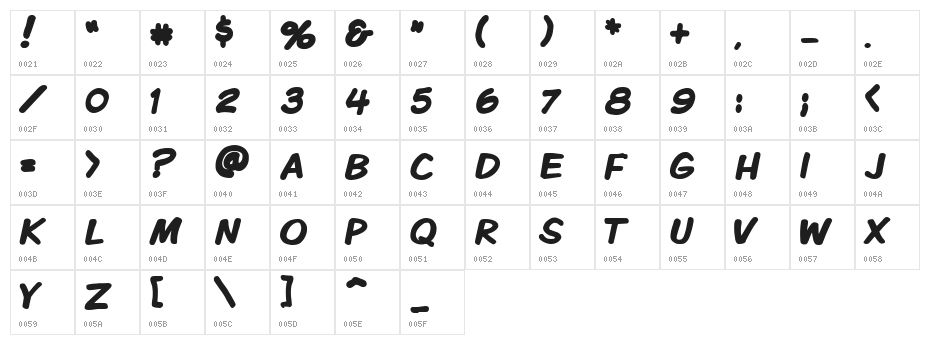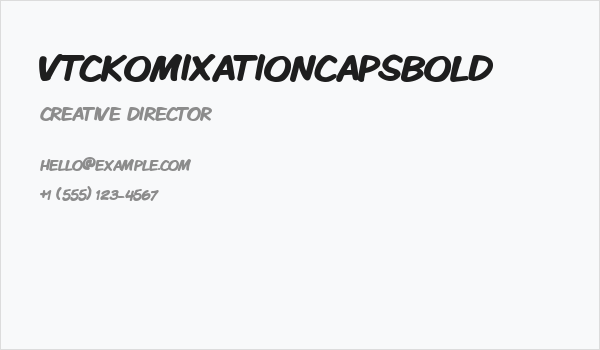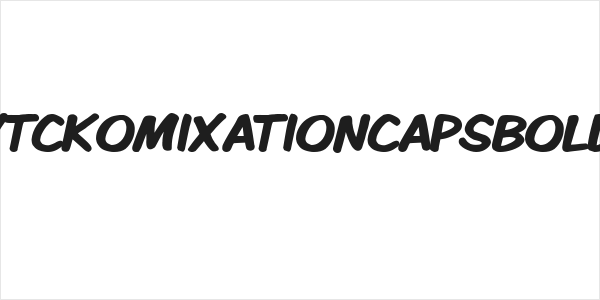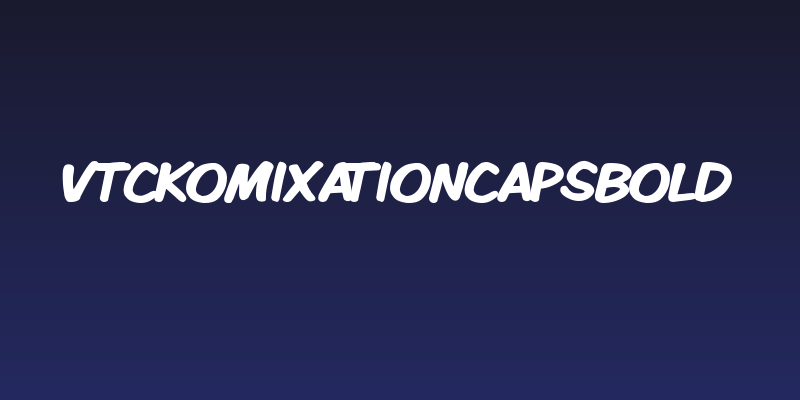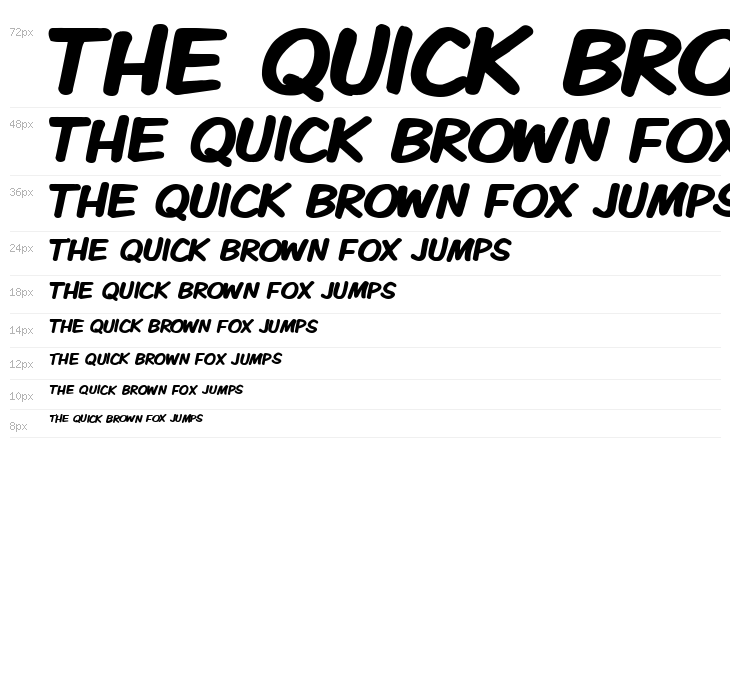
VTCKomixationCapsBold Font
VTCKomixationCapsBold Description
This bold, playful font features thick, rounded strokes that give it a comic-like appearance. The letters are slightly slanted, adding a dynamic and energetic feel to the text. The uppercase and lowercase characters maintain a consistent style, with smooth curves and a uniform thickness that enhances readability. The numbers and special characters are designed to match the overall aesthetic, making the font versatile for various uses. Its boldness and unique style make it stand out, perfect for projects that require a fun and engaging look.
| Overall Style | Playful, Comic |
| Proposed Projects | Ideal for comic books, children's books, playful branding, and posters. |